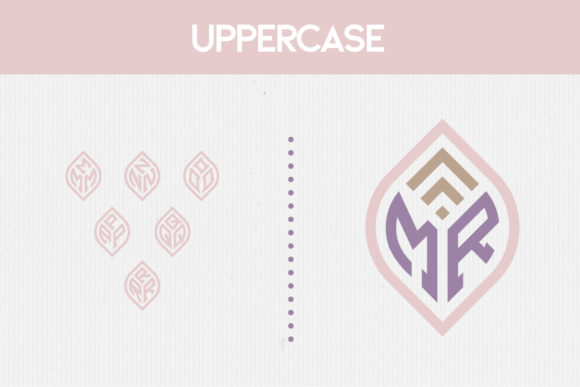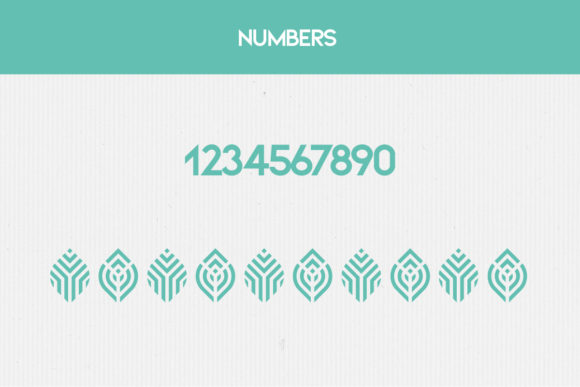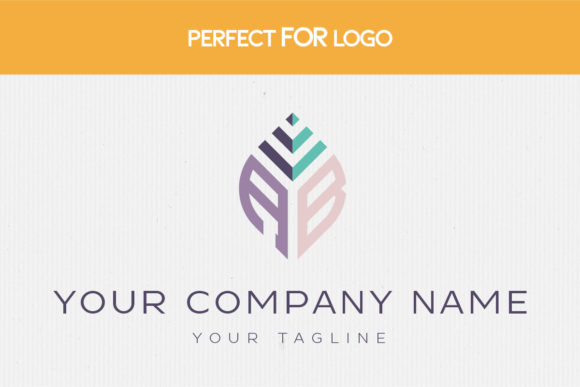
The Perfect Monogram for Your Masterpiece
Have you ever stared at a blank page, waiting for that spark of creativity to strike? For designers, those moments of inspiration can be few and far between, but when they do happen, it’s magic. And that’s exactly what happened when the Elliptical Triple Letters Monogram Font was born – a sophisticated decorative font that combines three letters in an elliptical form, creating a unique and eye-catching design.
This stunning font is perfect for adding a touch of elegance to your web designs, business cards, or any other project that requires a bit of flair. With its expertly designed curves and lines, the Elliptical Triple Letters Monogram Font is a valuable asset for any designer looking to take their creations to the next level.
Elliptical Triple Letters Monogram Font Key Features
- Font Type: Monogram Font
- Unique Characteristics: Elliptical shapes, triple letters, and intricate details make it perfect for luxury branding and high-end designs
Designer Review: Elliptical Triple Letters Monogram Font
Overall, I’d say the is a decent choice for those looking for a unique, monogram-style font. Here’s what I think works well:
- ✨ The font’s elliptical shape is a nice touch, giving it a touch of elegance and sophistication.
- ✨ The triple letters monogram style is perfect for creating custom initials or logos.
- ✨ The font is available in a range of styles, from casual to formal, making it suitable for various design projects.
- ⚠️ The font may be too ornate for some designs, making it difficult to read or use in smaller sizes.
- ⚠️ Some characters may not be available in certain styles, which could limit its use in certain projects.
Overall, I’d give the 3.5 out of 5 stars. While it’s a great choice for unique design projects, its limitations may make it less suitable for more straightforward designs. With a bit of creativity and experimentation, however, it can be a valuable addition to any designer’s toolkit.
For the most out of the Elliptical Triple Letters Monogram Font, use it for:
Business logos and branding
Special occasion cards and gift tags